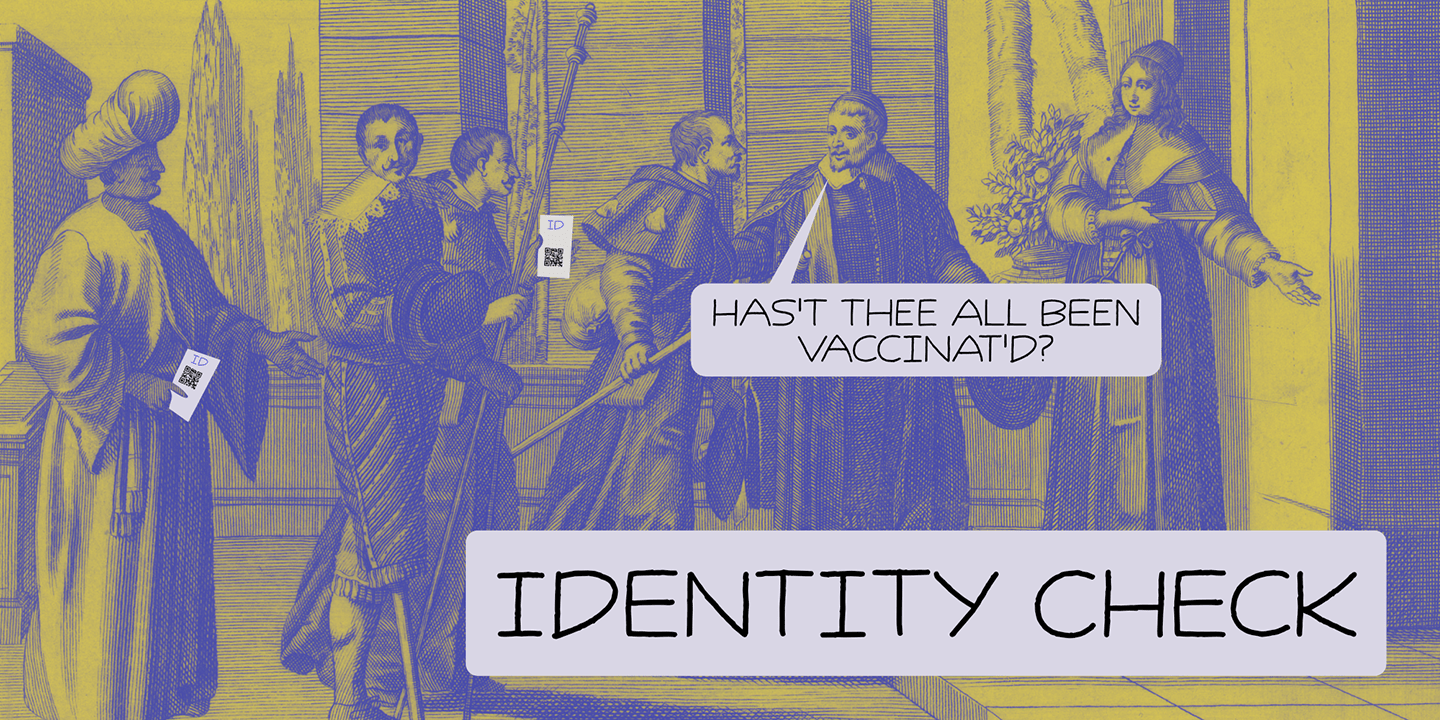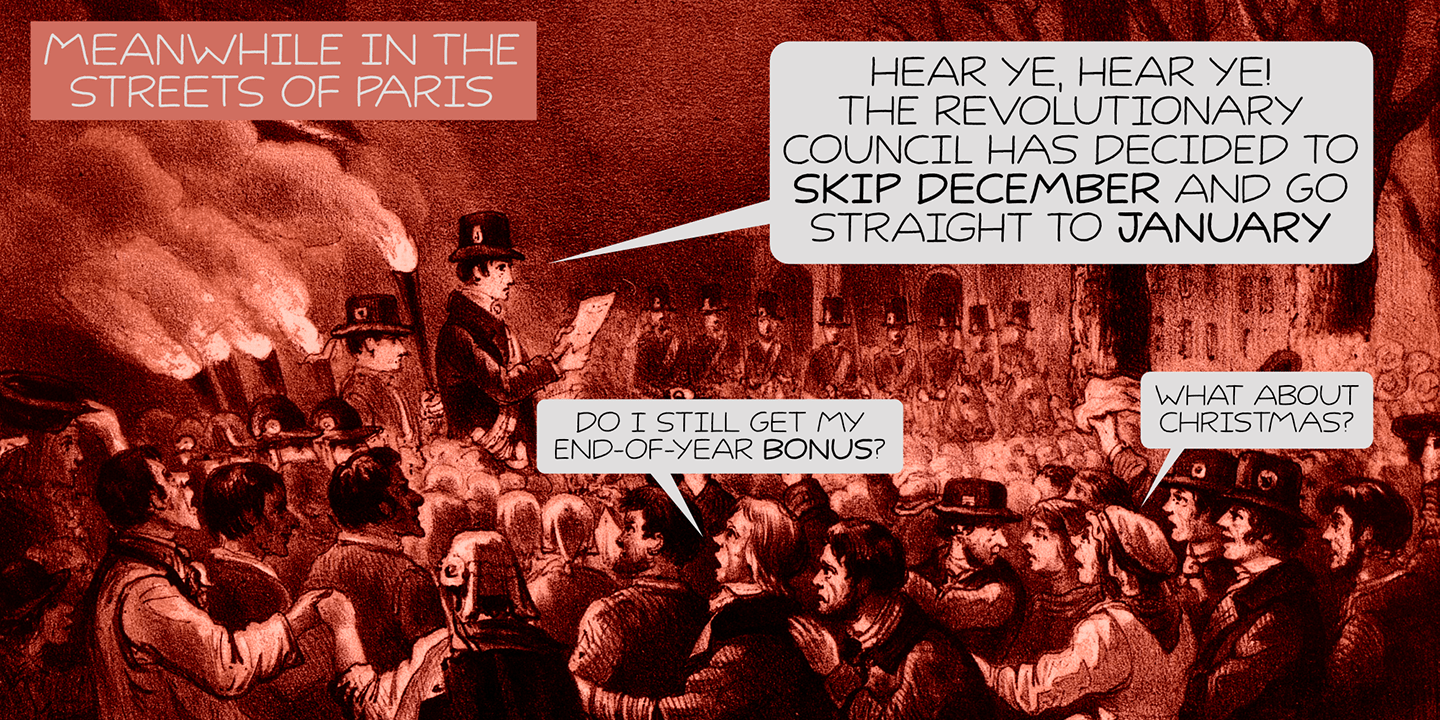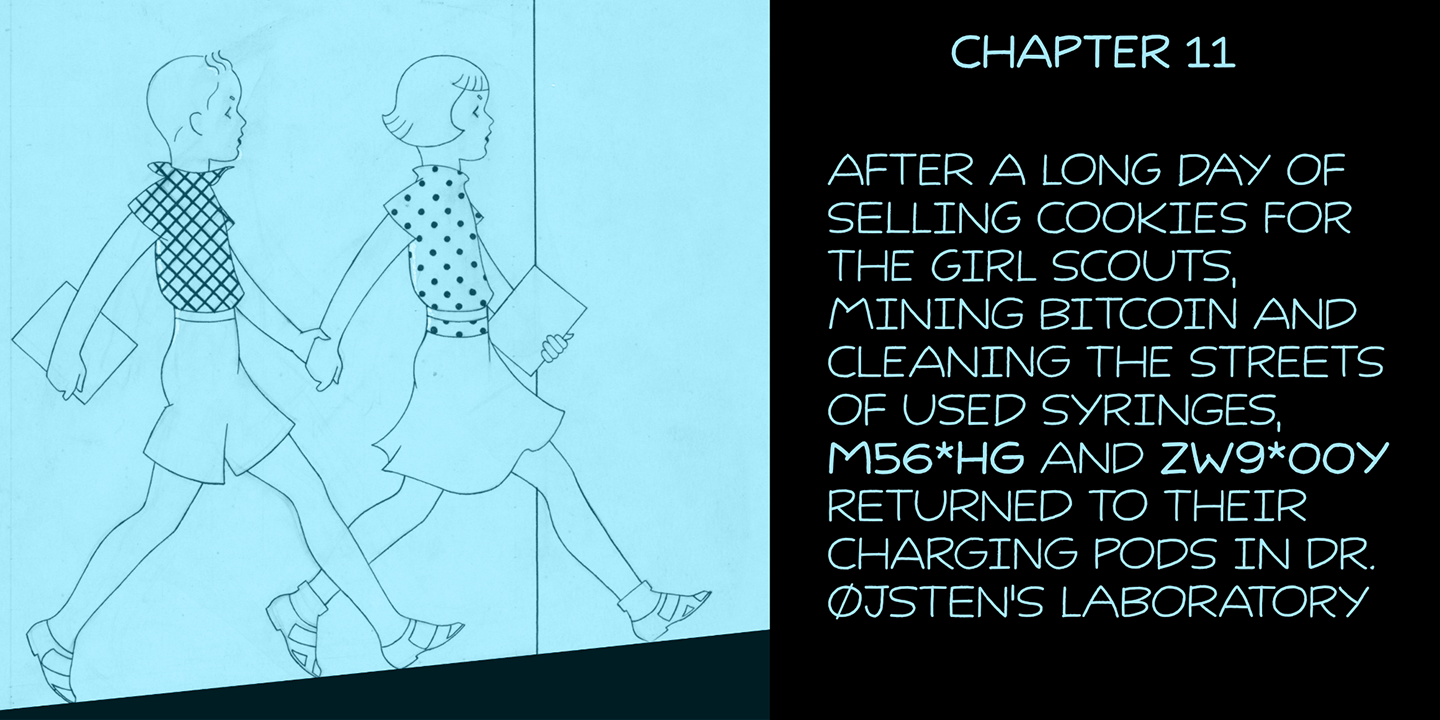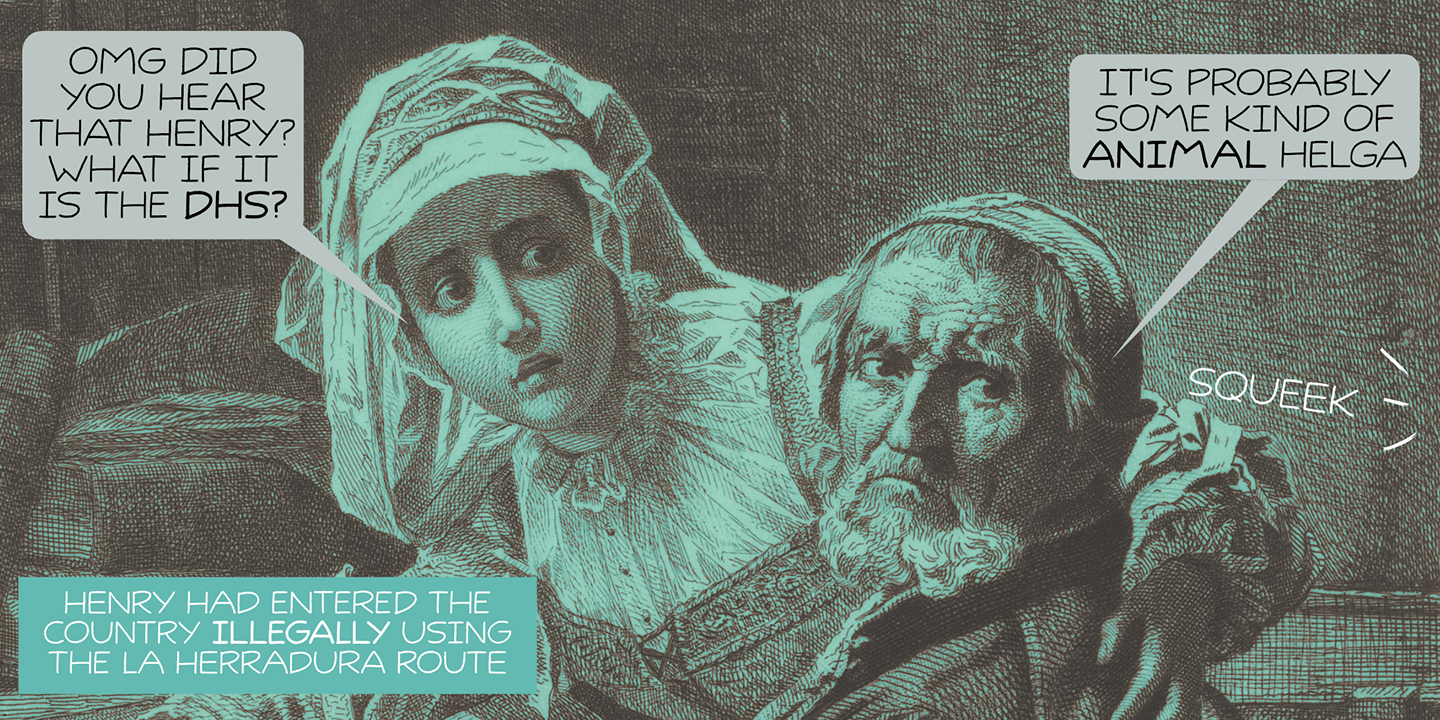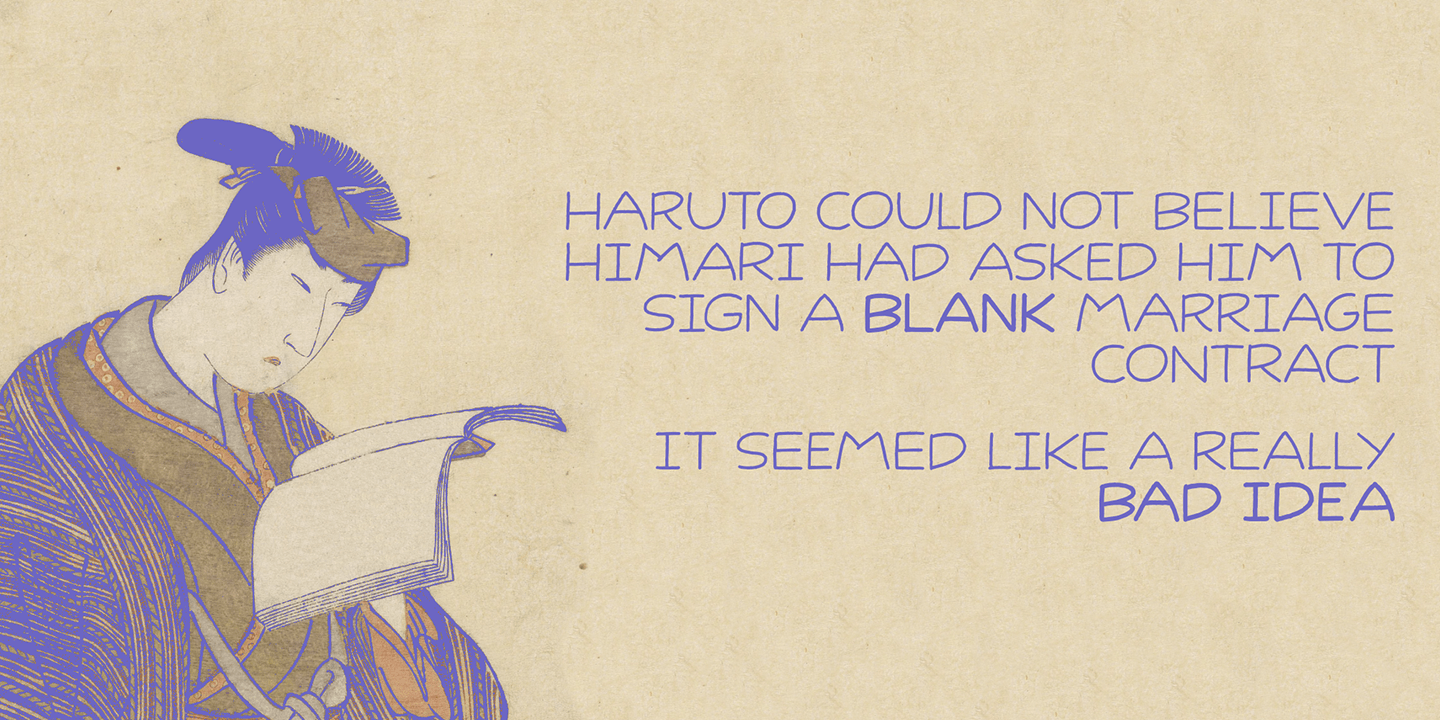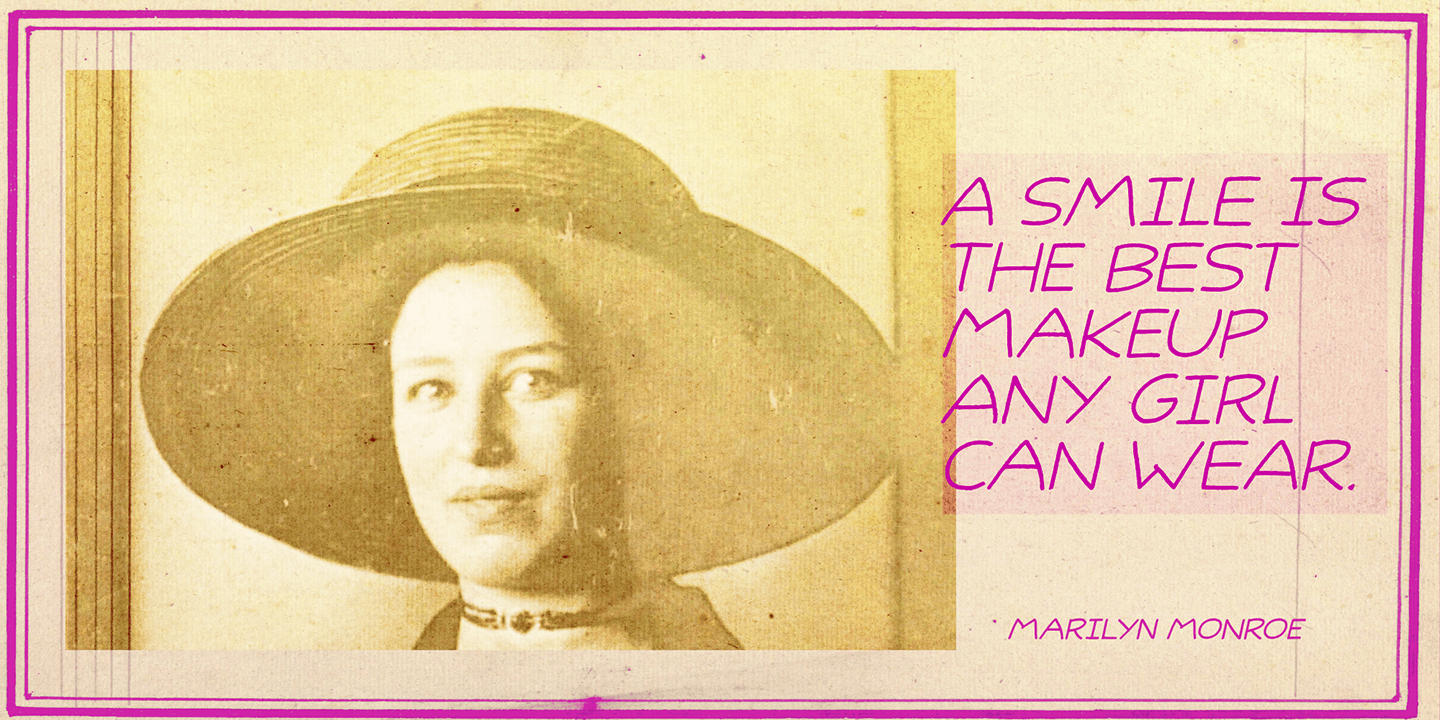
Identity Check
Every time I bring my youngest son to his swimming lessons, I need to show my Covid Vaccination Pass; a QR code on my phone. I thought that I would be off the hook after I showed it the first time, but no, not at the swimming pool! It feels a bit like a bad comic book, so I decided to name this comic book style font Identity Check. Of course, I should have called it Covid Vaccination Check, but that is just too much and it probably won't sell. Who wants a font called Covid?? ;-)
Identity Check is a comic book style font. The glyphs are wider than I am used to (it seems I AM capable of learning new tricks), but the effect is rather nice.
Identity Check comes with extensive language support, including Cyrillic and Vietnamese. Plus two sets of alternate glyphs, that cycle as you type.